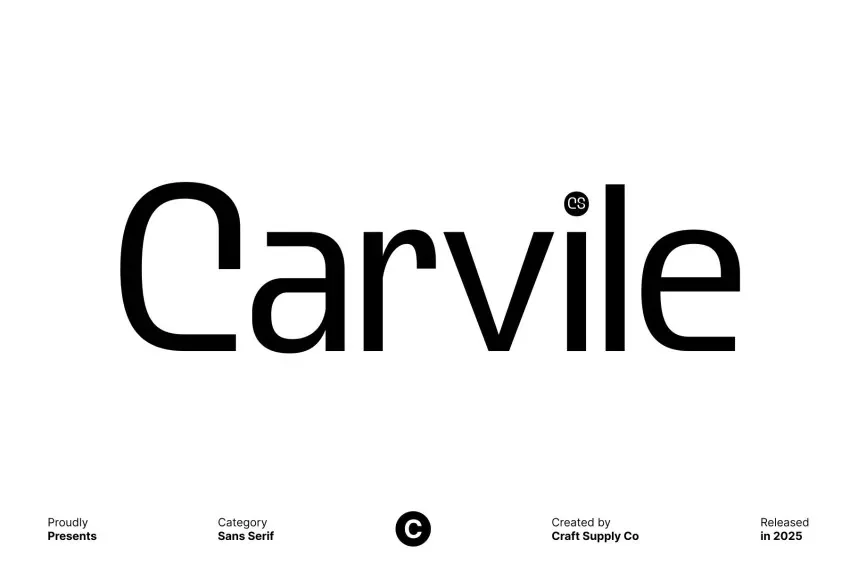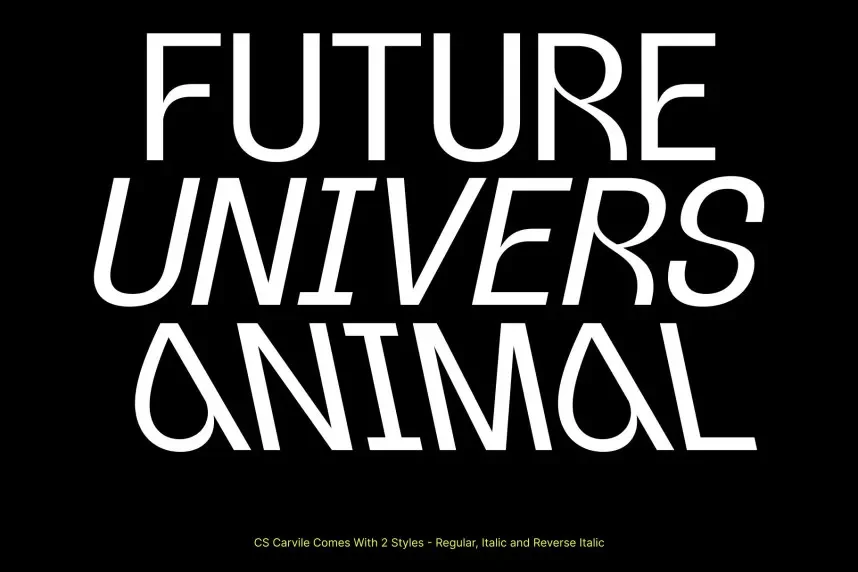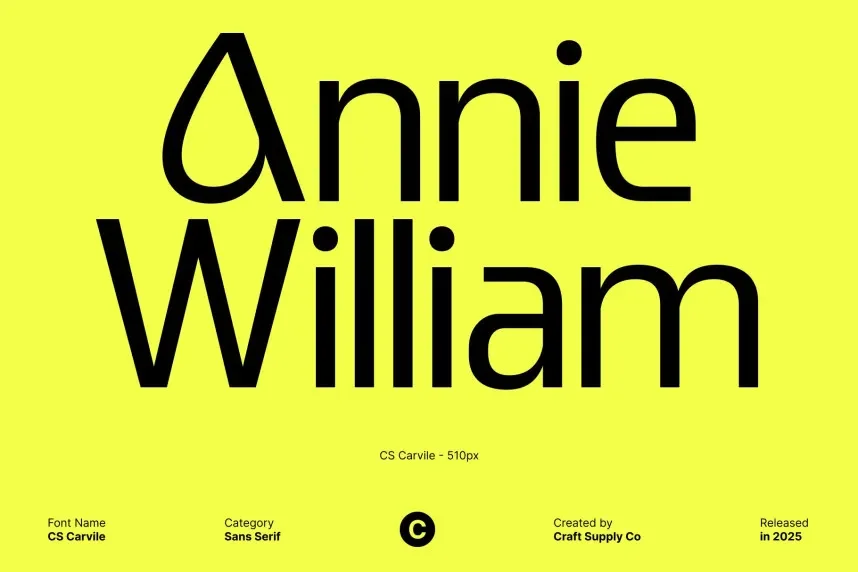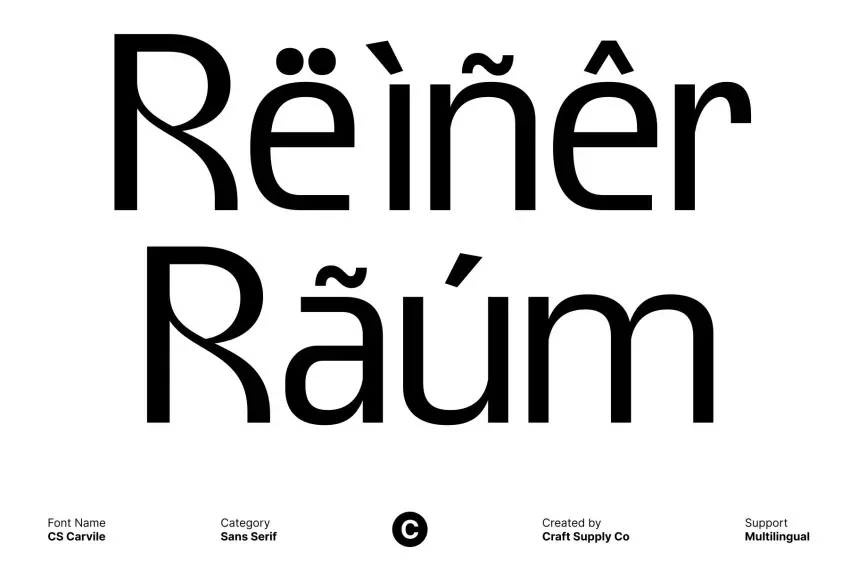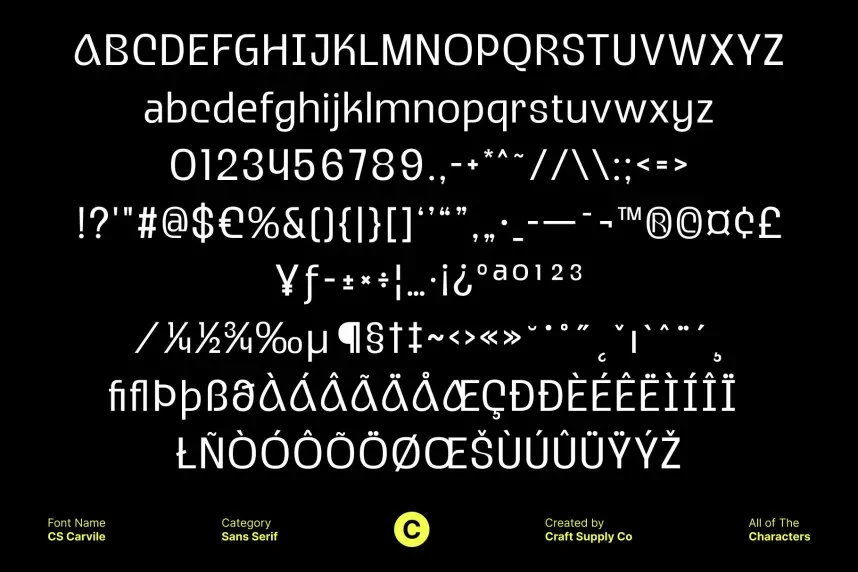
CS Carvile Font addresses the need for a professional, clean serif font suitable for both corporate branding and editorial projects. Its elegant structure helps maintain a formal look without being overly stiff.
CS Carvile is a serif typeface with refined letterforms and balanced stroke contrast. The serifs are well-defined, providing a strong sense of structure, while the spacing and proportions ensure readability in print and digital formats.